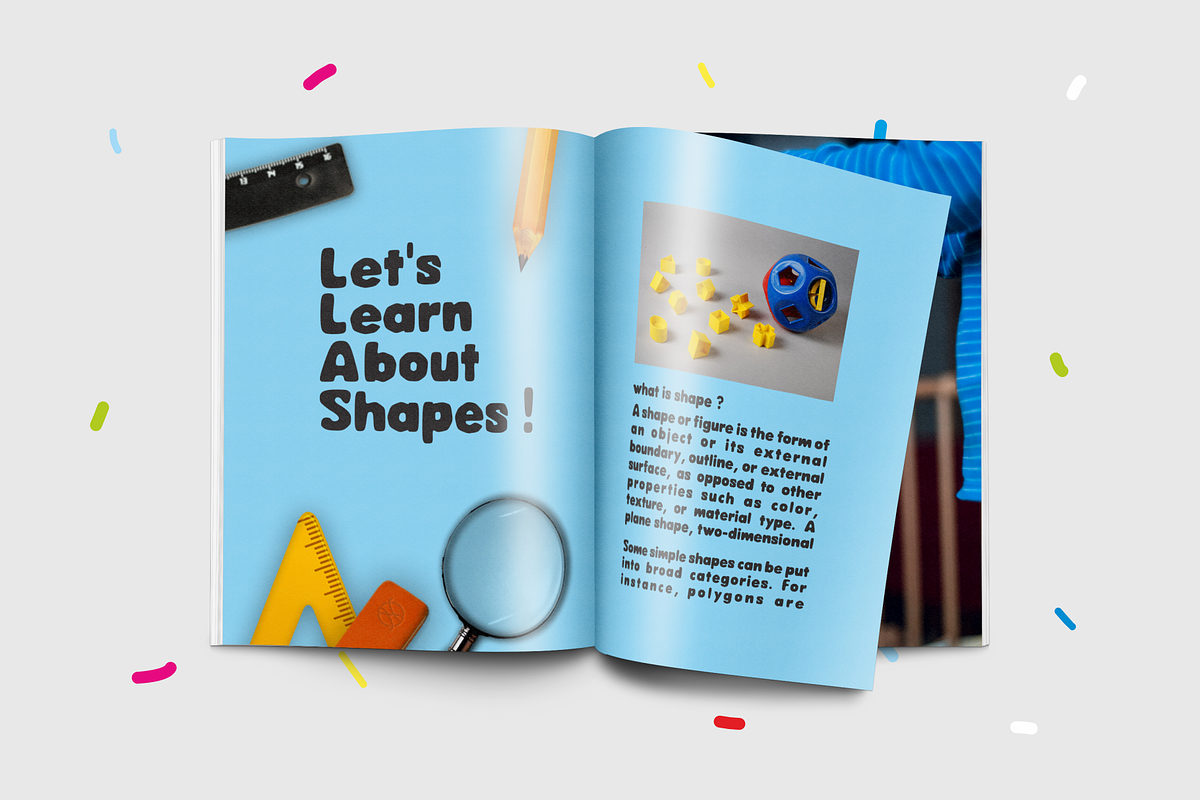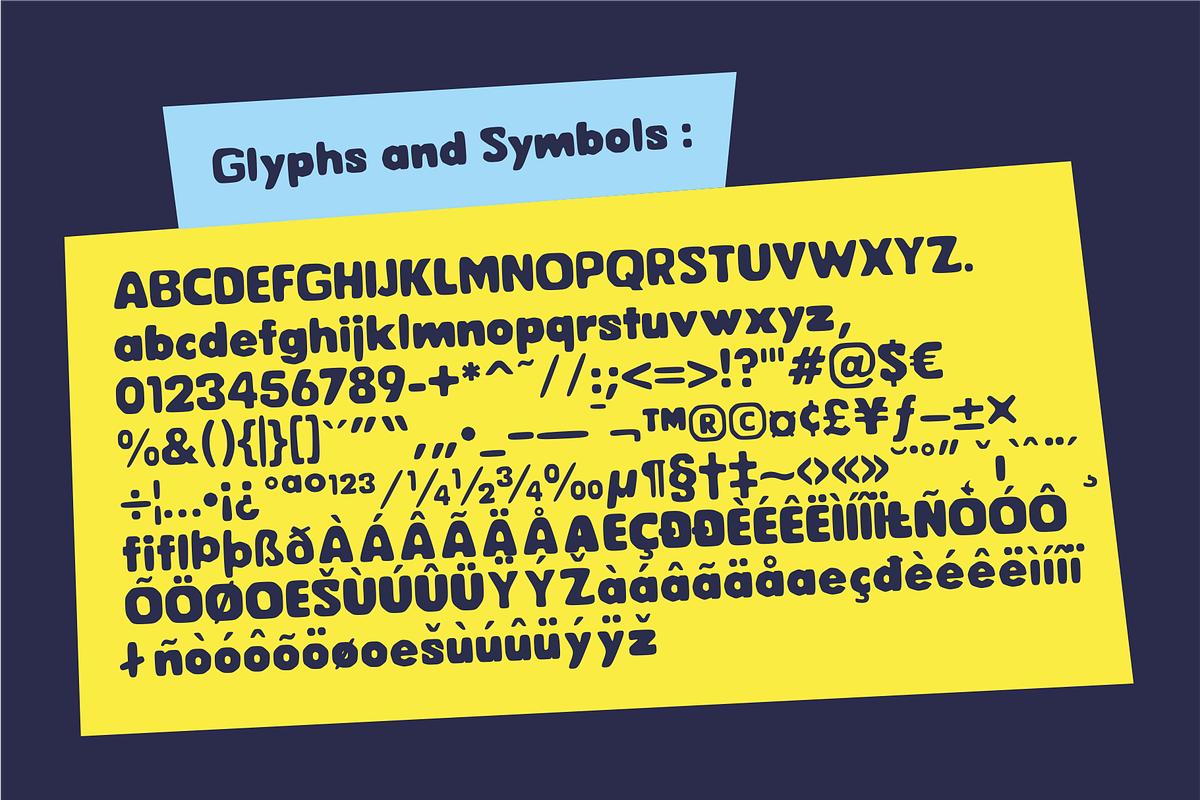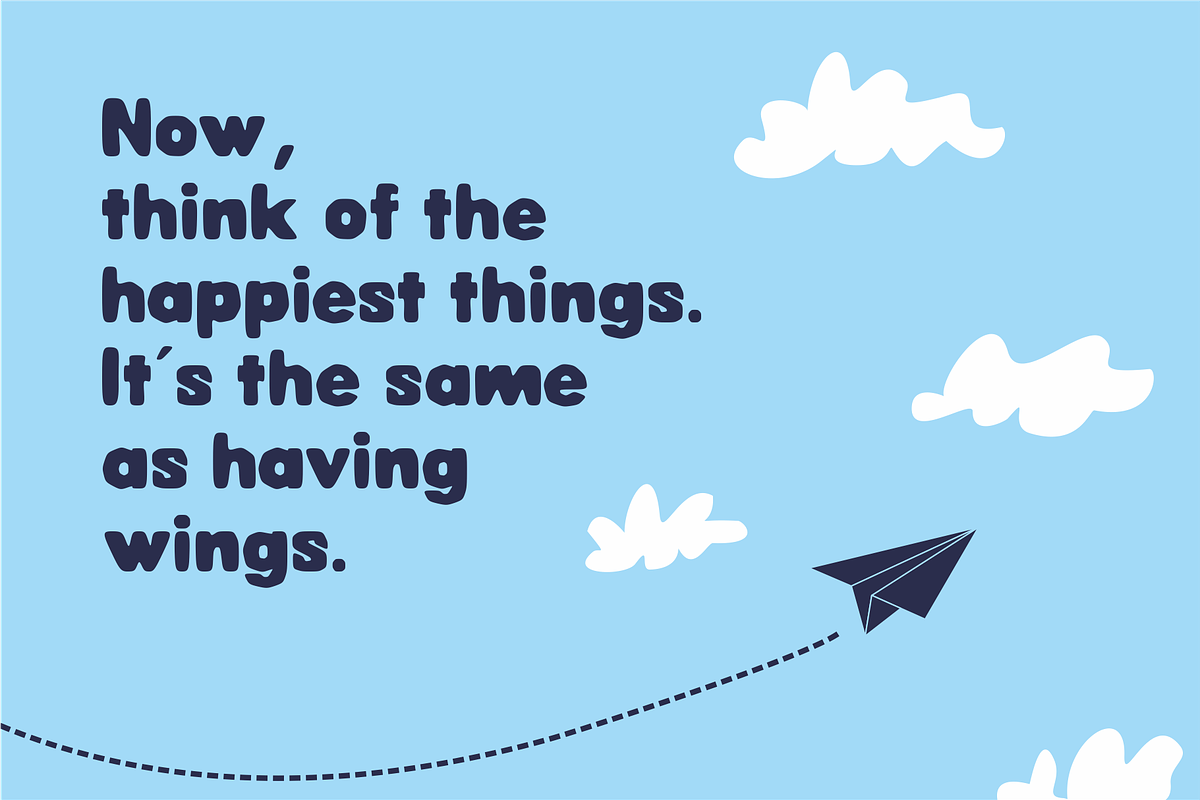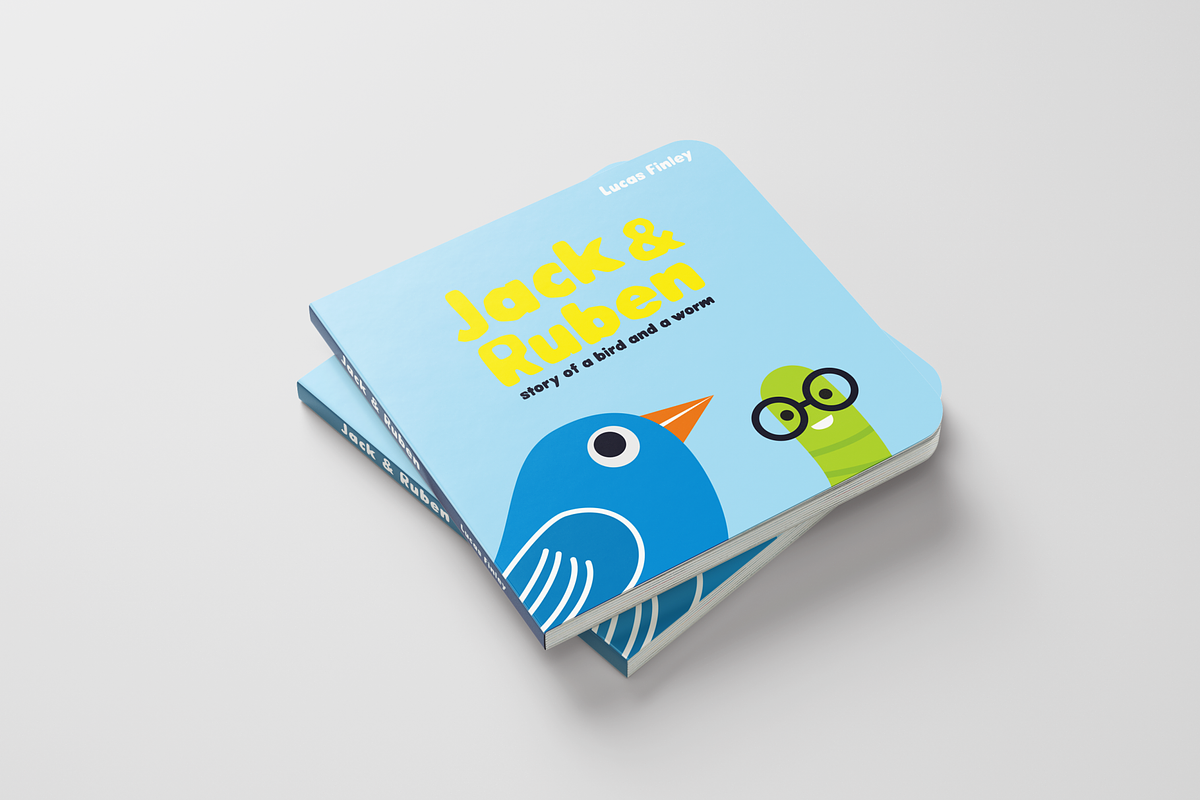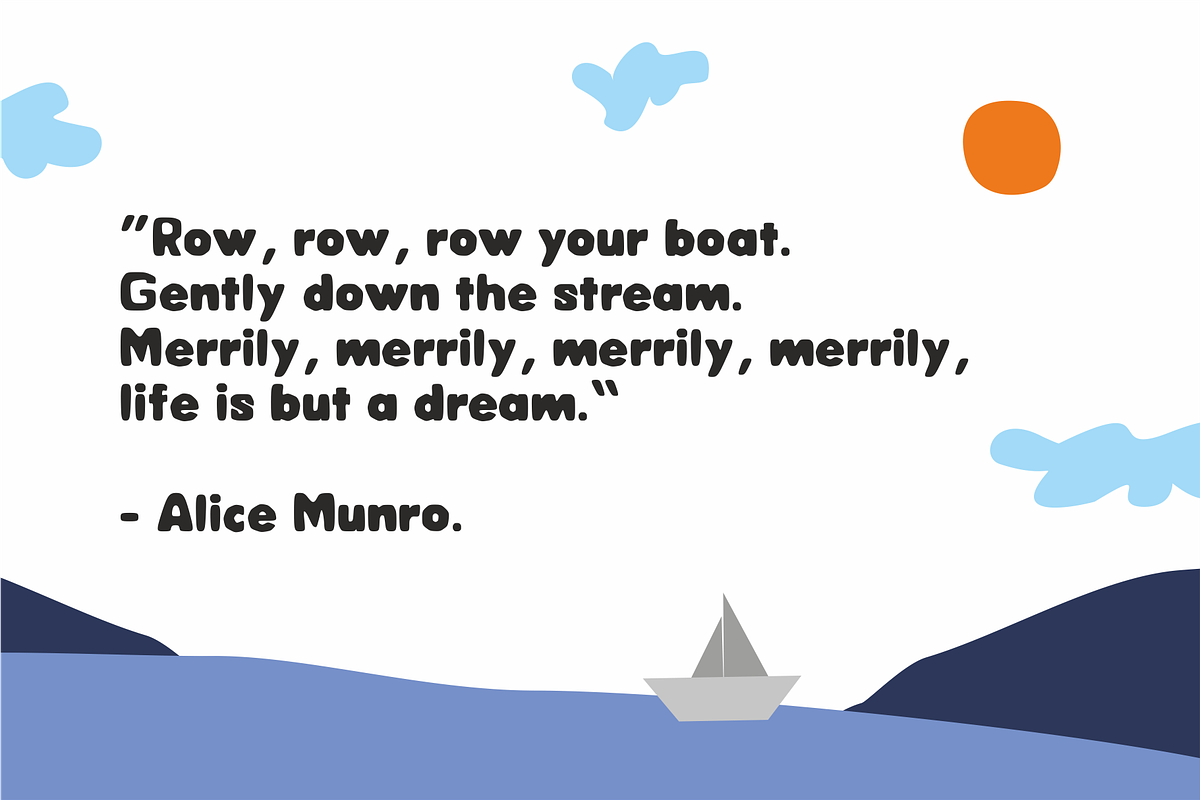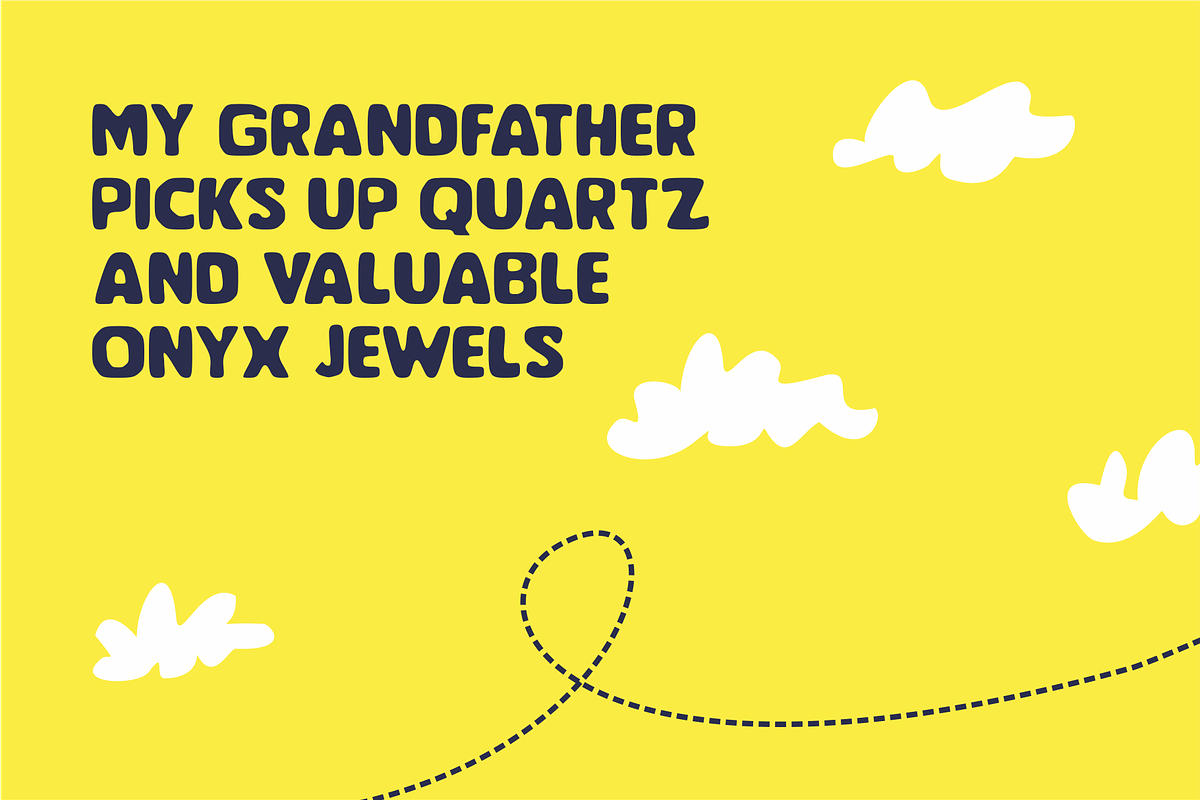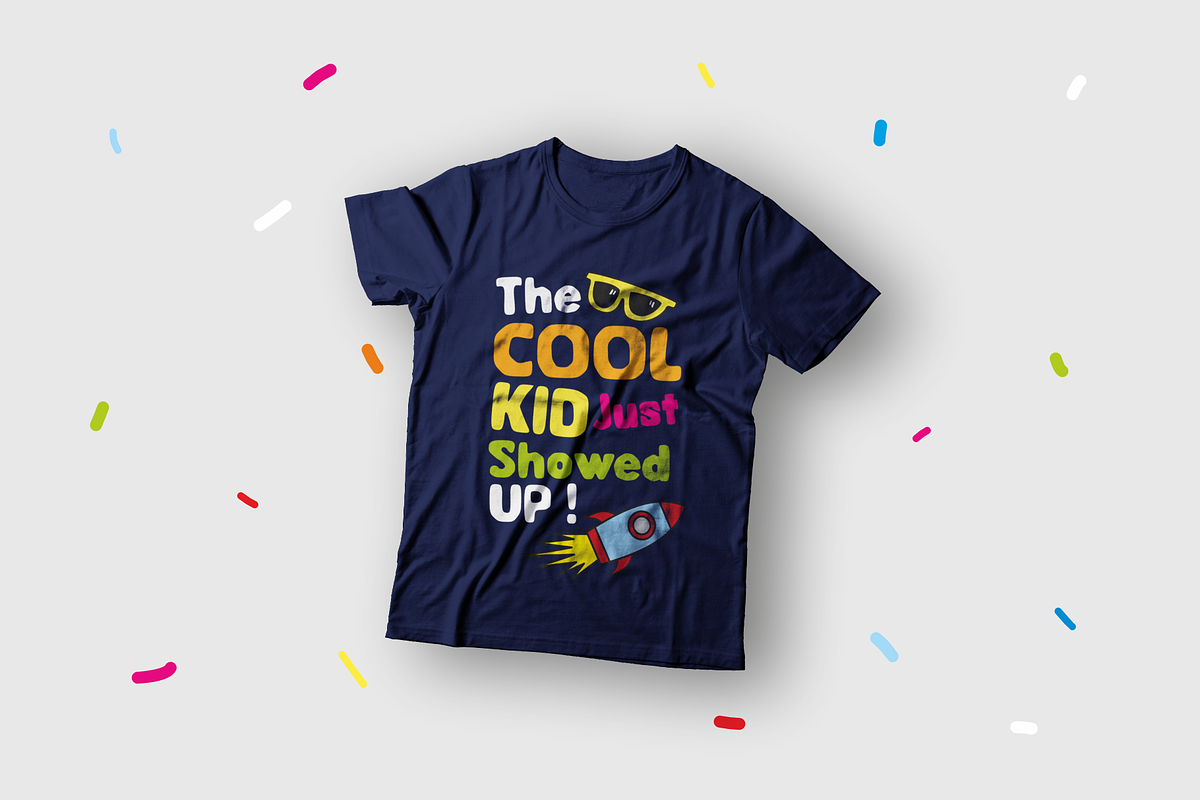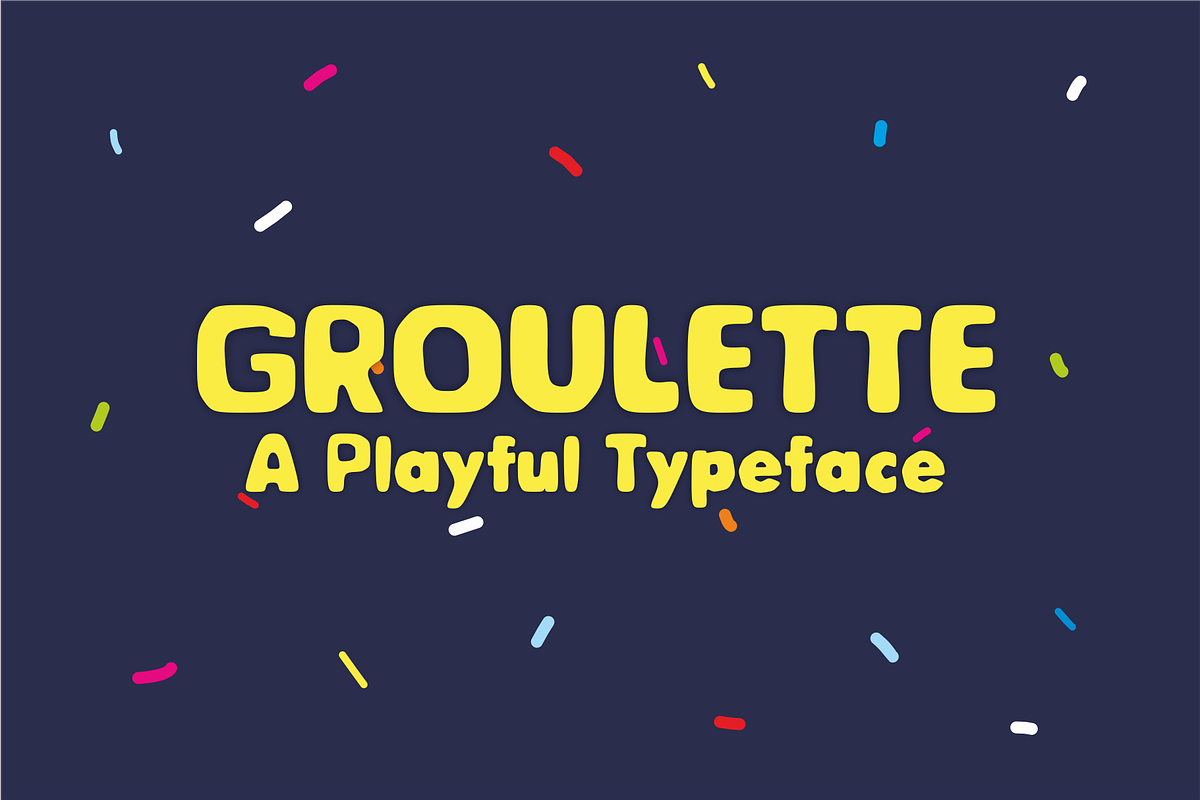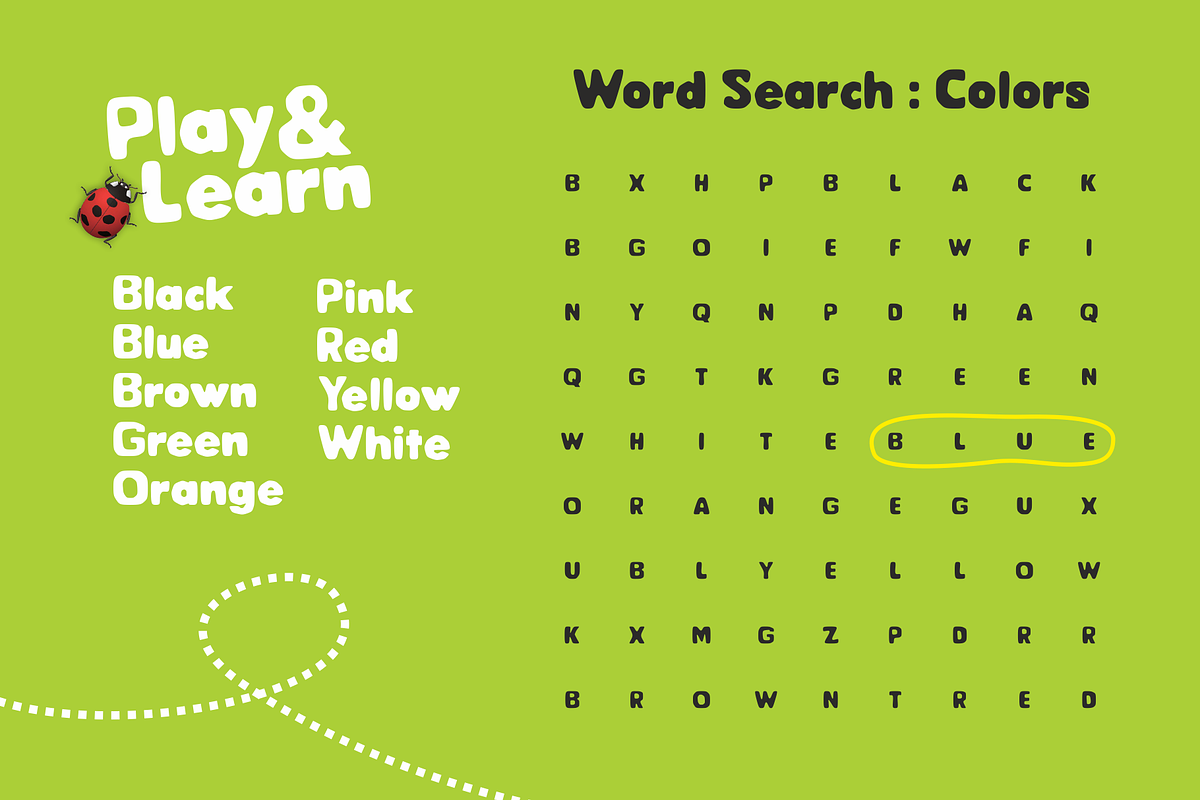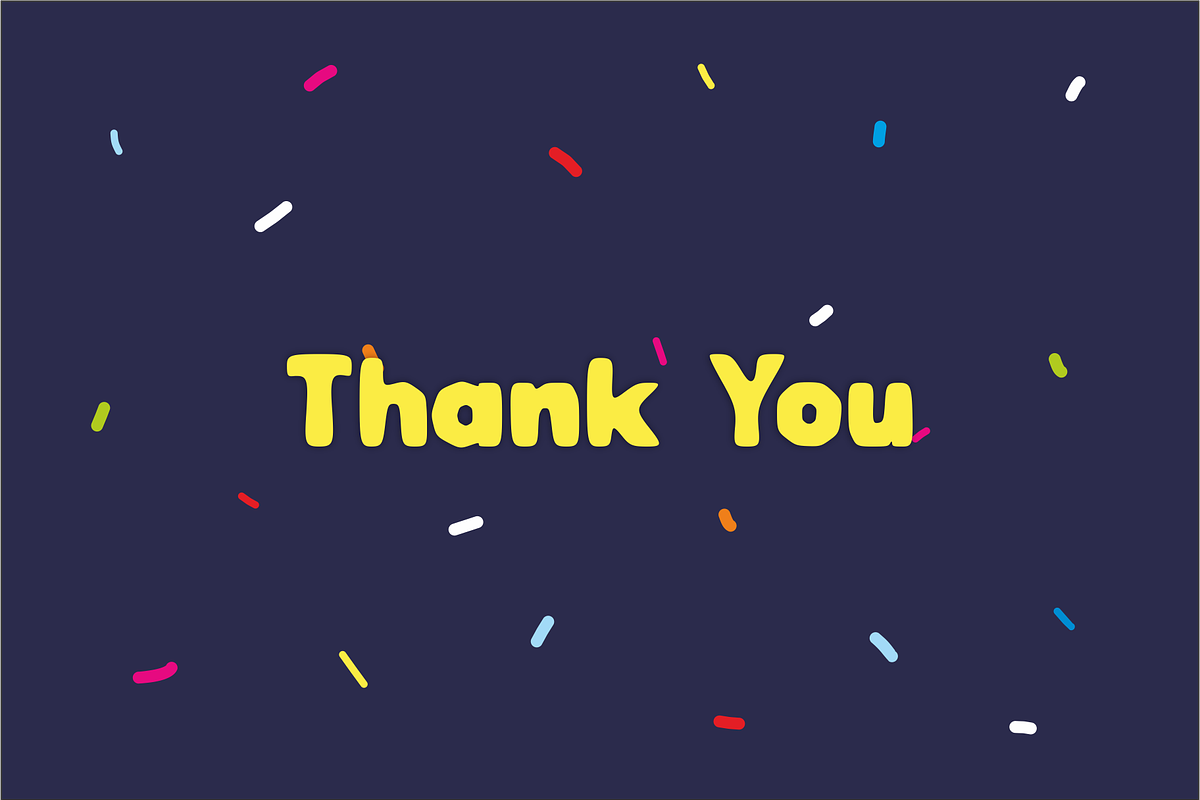
GROULETTE
Groulette is a playful typeface. It offers support for all characters of the english language. Standart punctuation glyphs are included. Groulette is perfectly suited for many graphic design platform and media. Compatible with software such Photohop, Adobe Illustrator, Corel Draw etc. It playfulness make it graet for creative projects, comic books, children books, and for communicating your Brand.